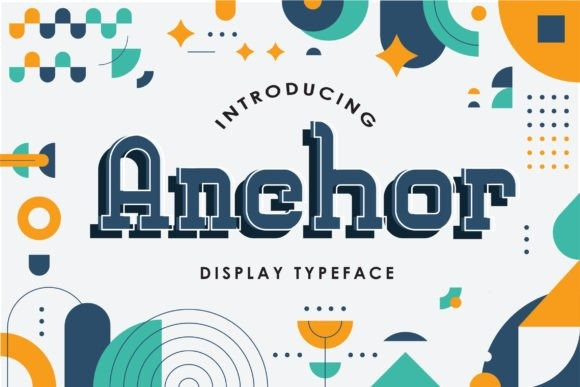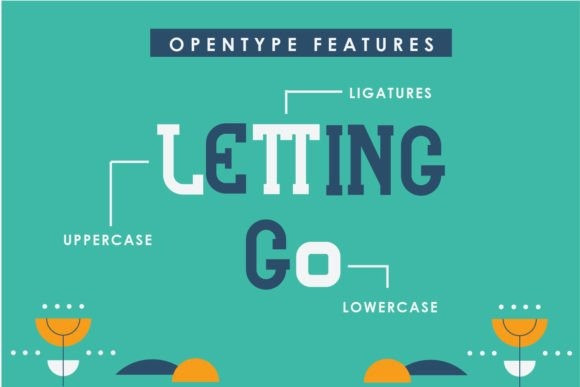
Anchor Font
Anchor is a bold and aesthetically pleasing display font that conveys impeccable friendliness. Whether you’re using it for crafts, digital design, presentations, or making greeting cards, this font has the potential to become your favorite go-to font, no matter the occasion!